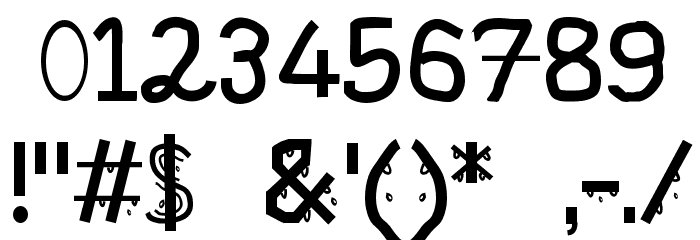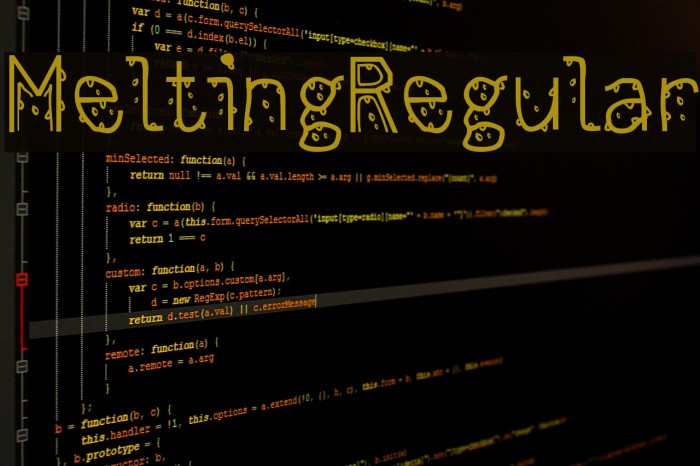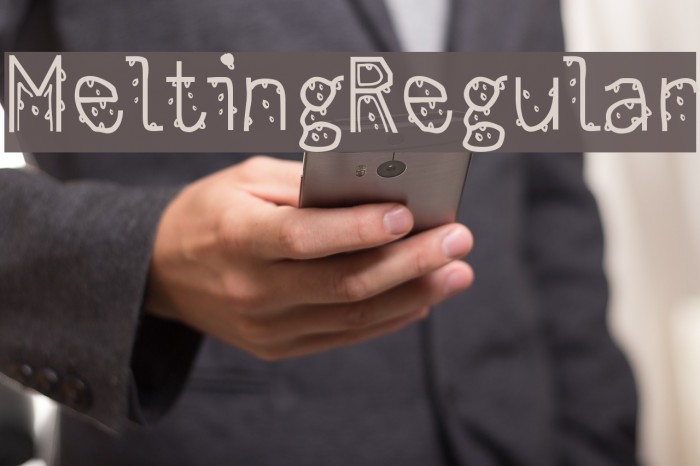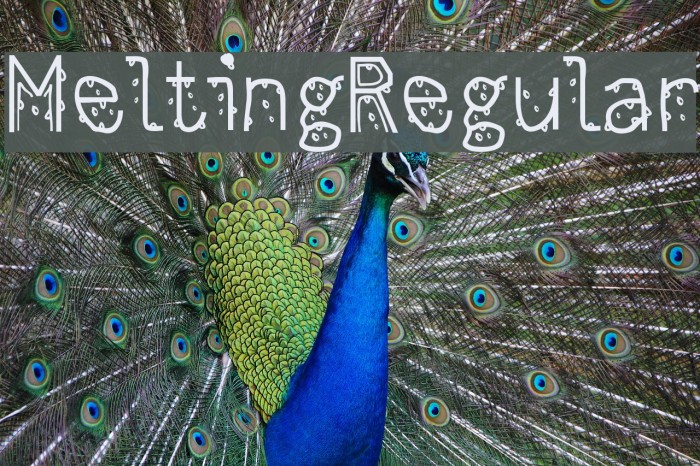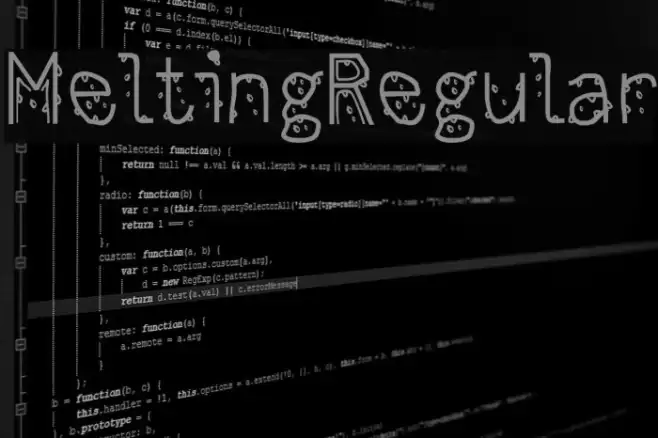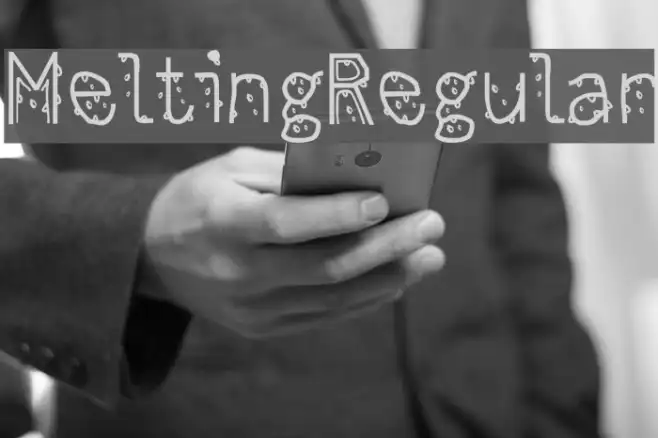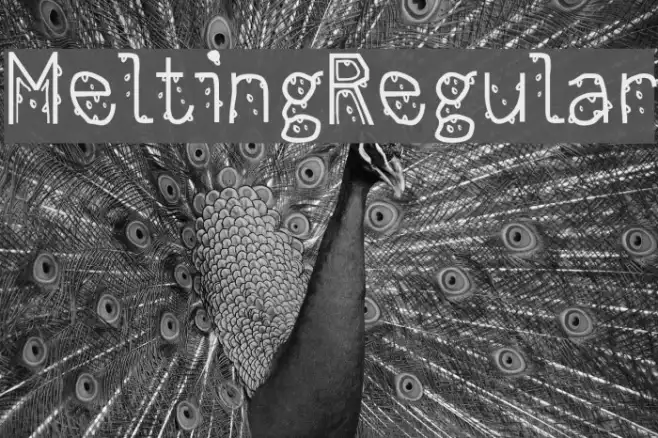
MeltingRegular Font
This font features a unique and playful design, characterized by its melting, dripping effect that gives each character a dynamic and fluid appearance. The uppercase and lowercase letters maintain a consistent style, with the uppercase being more angular and the lowercase more rounded. The numbers and special characters follow the same melting theme, adding a whimsical touch. This font is perfect for creative projects that require a fun and eye-catching aesthetic. The overall design is bold and decorative, making it stand out in any context.
A playful, melting-style decorative font with a bold and dynamic appearance.